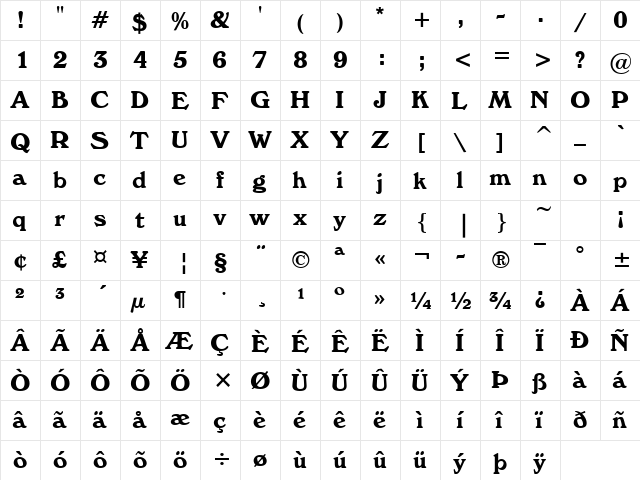
Prodigal Bold
Design Context for Prodigal Typeface
Prodigal offers clean, dependable letterforms without strong stylistic allegiance, making it a practical choice for designers who need flexibility. The heavy weight commands attention and anchors typographic hierarchies.